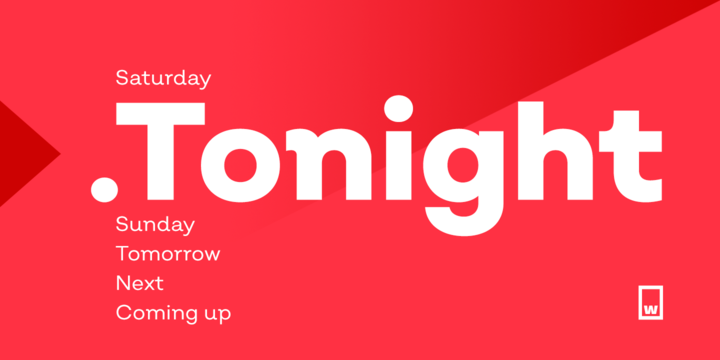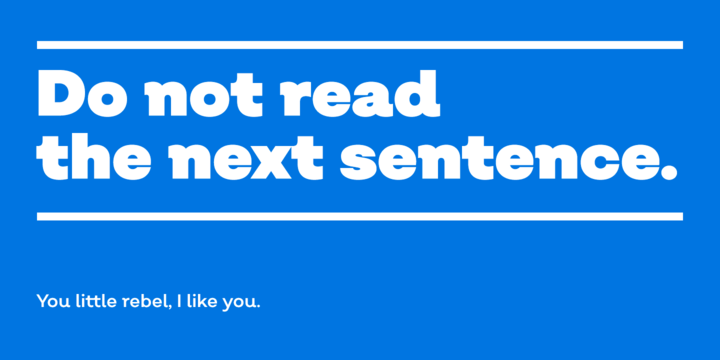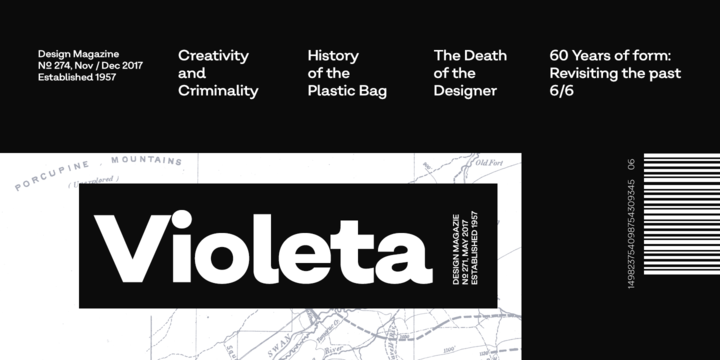
Salvatore is the neo-grotesque younger brother of Nutmeg type family. It comes with 36 weights that has been separated in two flavours. The first half is Salvatore normal which has more neutral features and the second one is Salvatore Roman which has more versatility at the end of the characters.
The name comes from the Mad Men character Salvatore Romano who was a publisher in the mid 60s.
In that period grotesques typefaces ruled the advertising, nevertheless there was no typeface that represent publishers as Salvatore Romano, thats why we gave birth to this project.
More Designed with powerful OpenType features in mind, each weight includes alternate characters, ligatures, fractions, special numbers, arrows, extended language support and many more Perfectly suited for graphic design and any display/text use.
The 36 fonts are the first part of a larger Salvatore family. Were proud to introduce: Salvatore.